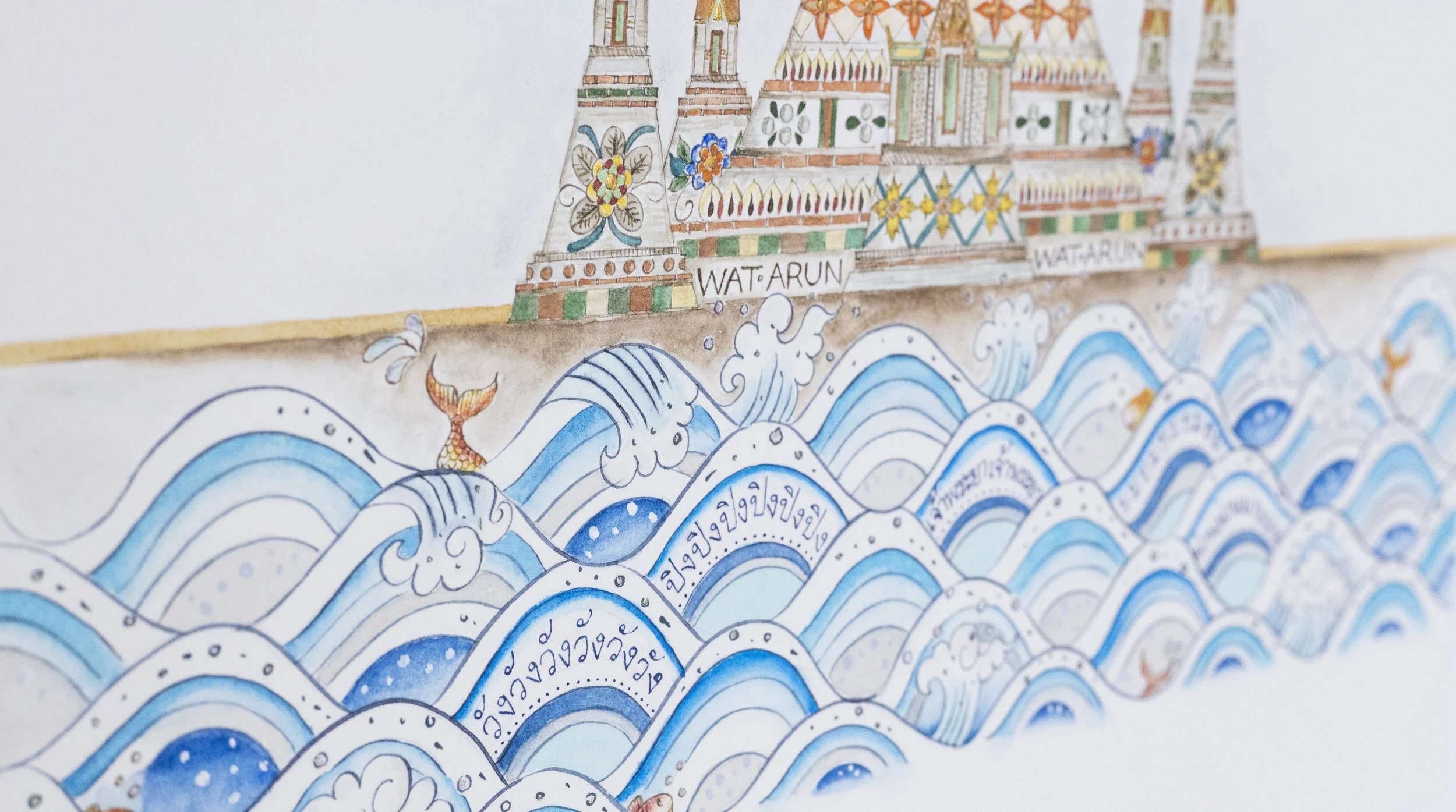
KUNNATEE VECHASILP | Wat Arun
ARTIST | Kunnatee Vechasilp
BASED IN | Bangkok, Thailand
TITLE | Wat Arun
SIZE | 279.4 × 381 mm
MEDIUM | Watercolor, watercolour paper, Thai gold leaf
Inspired by one of Thailand’s most iconic landmarks, “Wat Arun” or the “Temple of Dawn,” this piece pays tribute to its centuries-old architecture and presence along the Chao Phraya River. floral motifs were inspired by Qat Run’s porcelain decorations. Kunnatee captures the beauty, symmetry, and historic resonance that have inspired generations of artists.
About the Artist
An artist based in Bangkok, Thailand
Kunnatee Vechasilp
Kunnatee Vechasilp is an artist based in Bangkok, Thailand, with a lifelong love for art and crafts. Although creative classes were available where she lived, calligraphy was rare to find—until the internet and social media opened the door for her to begin her calligraphy journey in 2016. Drawn to classic scripts, she works with Copperplate, Spencerian, American Cursive, Italian Hand, and Gothicized Italic. Her practice is characterised by flourishing, ornaments, and delicate pen-drawn florals, which she considers the most joyful and expressive parts of her work.